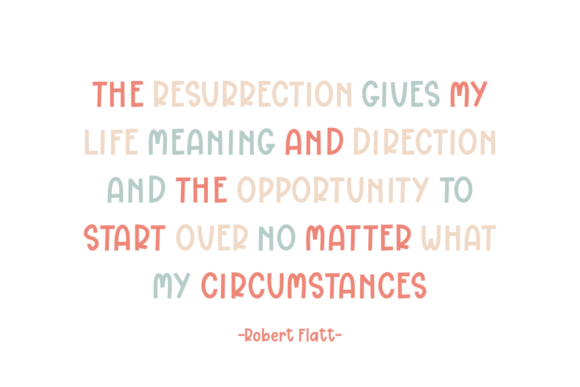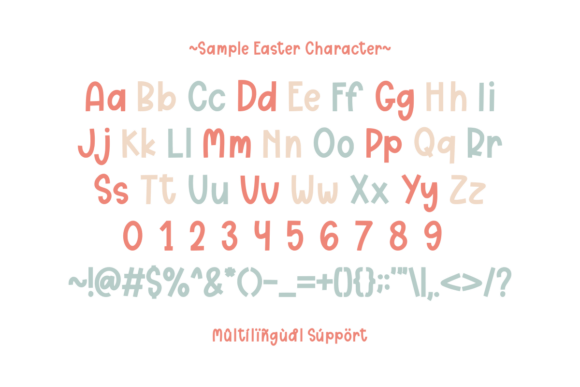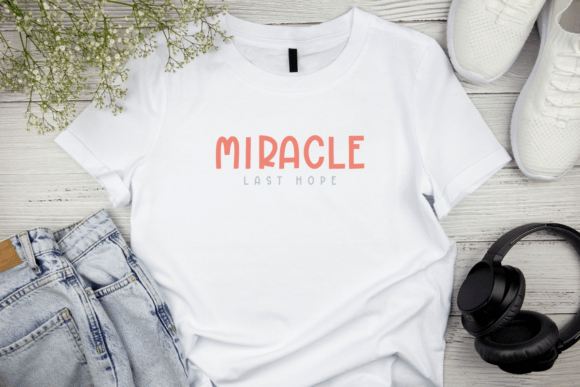
Introduction to Sample Easter Font
As a designer, there’s nothing quite like the thrill of finding the perfect font for a creative project. The moment you stumble upon that elusive combination of style, personality, and tone that elevates your design from good to great. For Easter-themed projects, that elusive combination is often found in the whimsical world of the Sample Easter Font.
This delightful display font is bursting with playful charm, its mix of uneven shapes and soft pastel tones guaranteed to put a smile on even the most discerning designer’s face. Whether you’re working on a free download, a design resource, or a high-quality commercial project, the Sample Easter Font is a valuable addition to any design arsenal.
Key Features of Sample Easter Font
- High-quality, vector-based font design, perfect for creative projects and designs.
- Unique Easter-themed characters and symbols, making it a great addition to spring and holiday-themed designs.
Honest Review: Sample Easter Font
As a designer, I’m always on the lookout for unique and high-quality design resources to elevate my creative projects. Recently, I stumbled upon the Sample Easter Font, and I’m excited to share my thoughts on this free download.
Here are some things that work well: ✨ The font is crisp and clear, with a beautiful, hand-drawn feel that’s perfect for Easter-themed projects. The transparent background makes it easy to layer over other designs, and the high quality of the font ensures that it looks great even at large sizes.
- Crisp and clear design
- Beautiful, hand-drawn feel
However, there are a few limitations to keep in mind: ⚠️ The font is only available in a limited set of sizes, which may limit its versatility for certain projects. Additionally, the font is not optimized for use in web design, so it may not display as well in certain browsers.
Overall, I’m impressed with the Sample Easter Font. It’s a great addition to any designer’s toolkit, and it’s perfect for adding a touch of whimsy to Easter-themed projects. Just be aware of the limitations mentioned above, and you’ll be golden.
Sample Easter Font
The Sample Easter Font is a unique and creative design resource that can add a touch of springtime magic to any project. With its high-quality design and transparent background, this font is perfect for a variety of applications.
Tips for Getting the Most Out of the Sample Easter Font
To get the most out of the Sample Easter Font, be sure to experiment with different layering and combining techniques. You can also use the font in conjunction with other design elements, such as images and graphics, to create unique and eye-catching designs.
The Sample Easter Font is perfect for a variety of applications, including:
- Spring and Easter-themed designs
- Wedding and party invitations
- Custom graphics and logos
- Print and digital advertising
- Personalized gifts and stationery